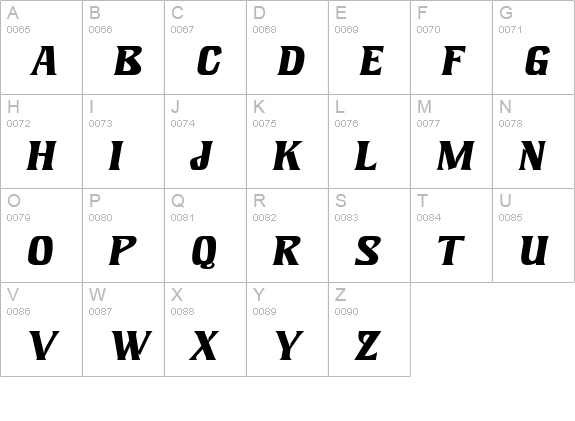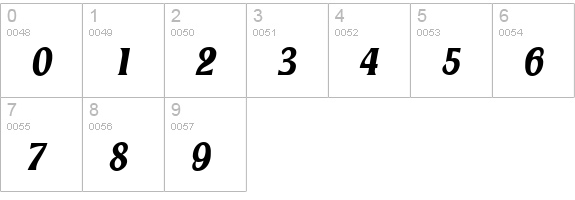
LookingGlass-Italic is a distinctive, italic variant in the LookingGlass typeface family \xE2\x80\x94 well suited to design and typography projects.
LookingGlass-Italic is a stylish and elegant font that is perfect for adding a touch of sophistication to your designs. The italicized version of the LookingGlass font family, it features beautifully slanted letterforms that exude a sense of grace and modernity. With its sleek curves and unique detailing, LookingGlass-Italic is ideal for use in a wide range of design projects, from branding and logo design to invitations and packaging. The best part? LookingGlass-Italic is available for free download at FontsMarket.com, making it easily accessible to designers and creatives looking to elevate their typographic creations without breaking the bank. Whether you're working on a personal project or a client commission, LookingGlass-Italic is sure to make a statement and bring a touch of sophistication to your work. Download it today and add a touch of elegance to your designs!